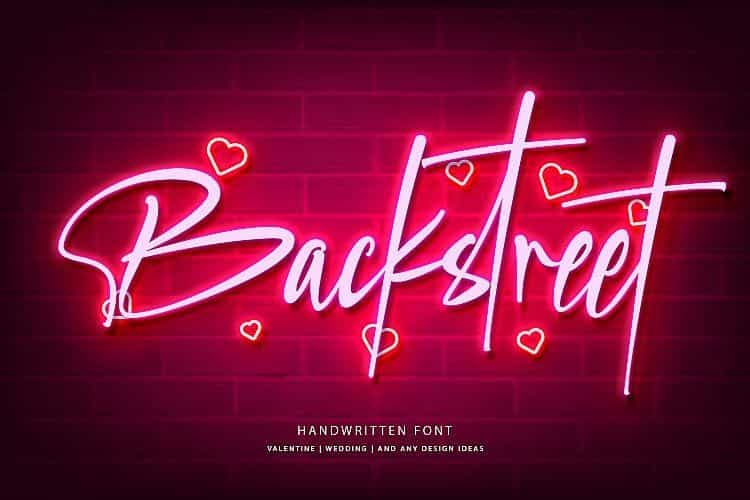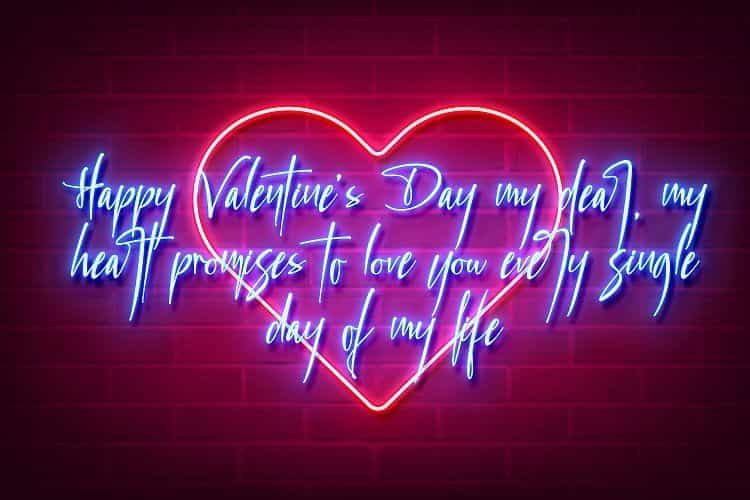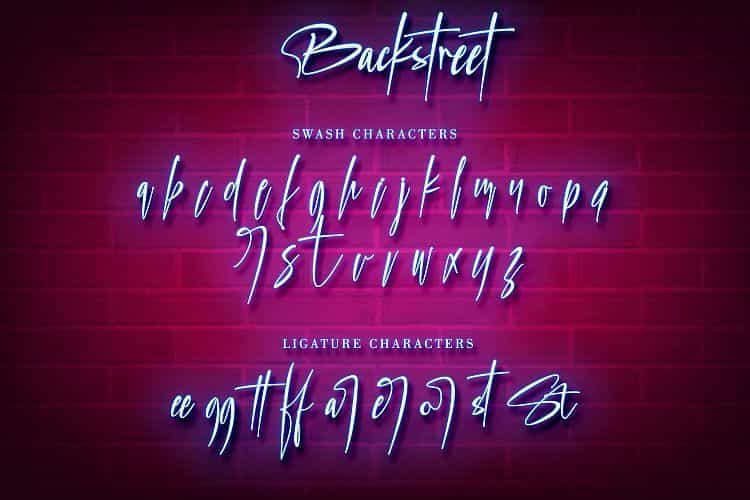
Backstreet is a hand-lettered script font, Try this cheerful and funny handwritten font on for size! Perfect for your crafting design. Backstreet Script is a typeface that was created by hand and has its own special features.